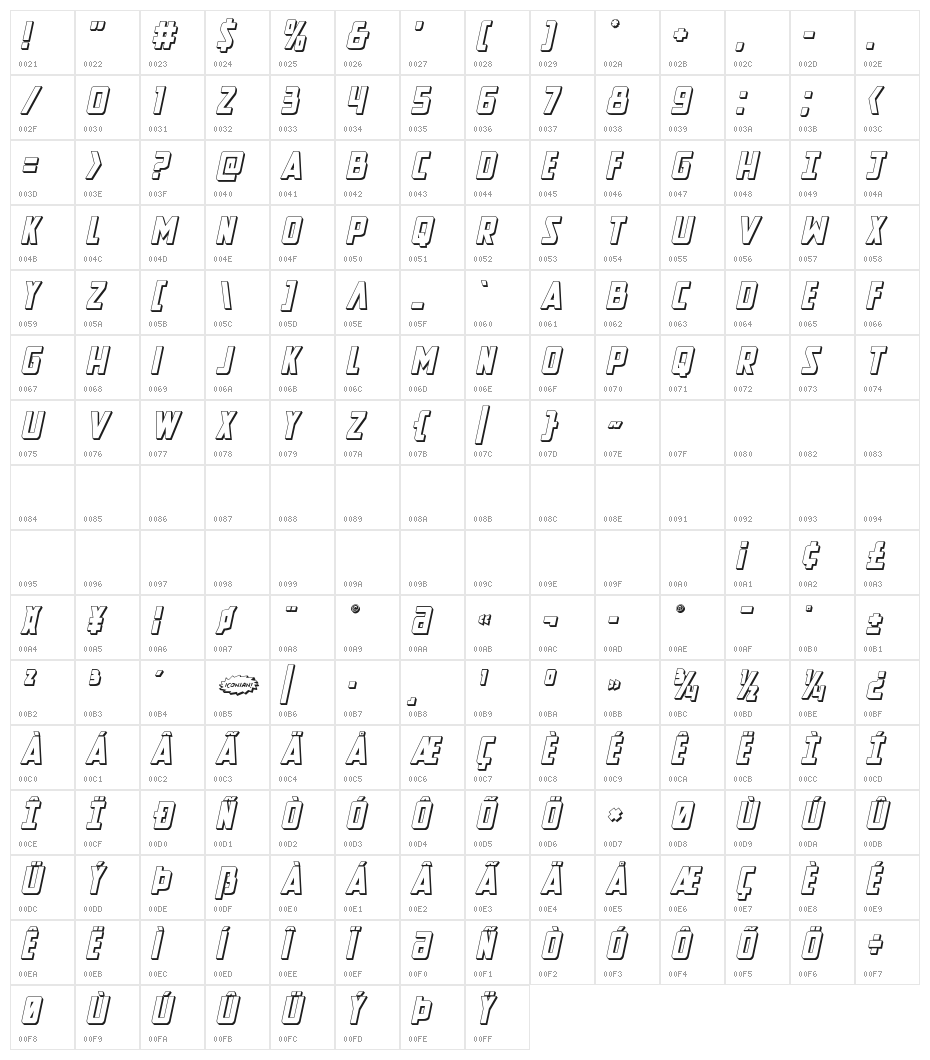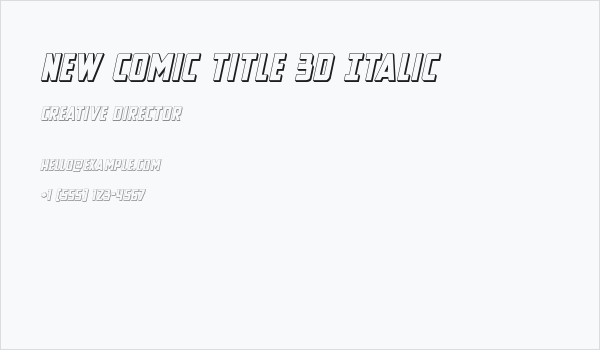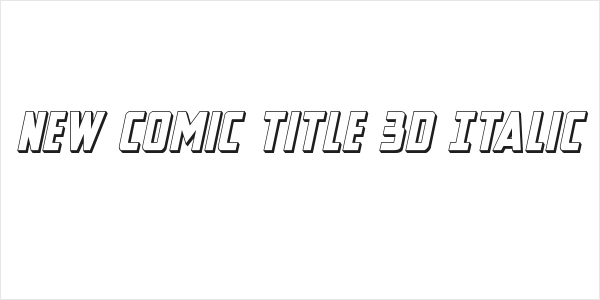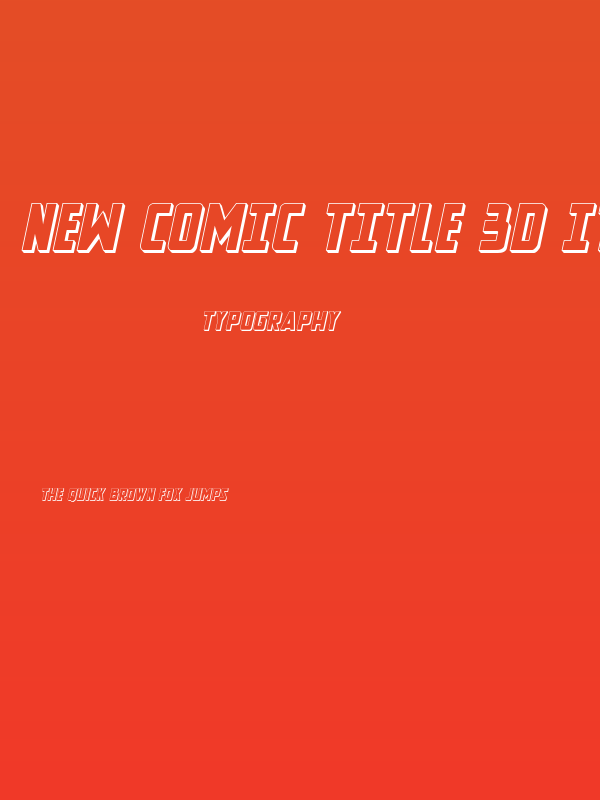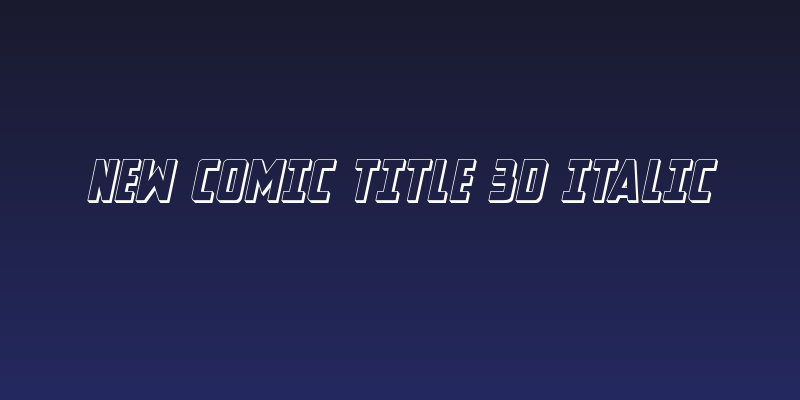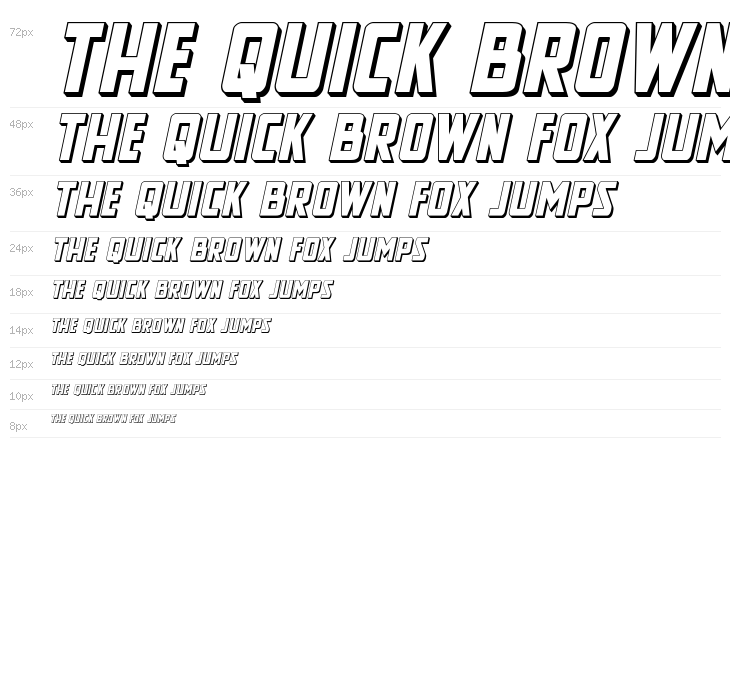
New Comic Title 3D Italic Font
New Comic Title 3D Italic Description
This font features a bold, three-dimensional style with italicized characters that create a dynamic and playful appearance. The letters have a strong, block-like structure with a slight slant, giving them a sense of motion and energy. The 3D effect is achieved through a shadow-like outline that adds depth and dimension to each character. The font includes both uppercase and lowercase letters, numbers, and a variety of special characters, making it versatile for different design needs. Its boldness and unique style make it stand out, perfect for grabbing attention.
| Proposed Projects | Ideal for comic book titles, posters, video game graphics, and any project requiring a fun and energetic typeface. |